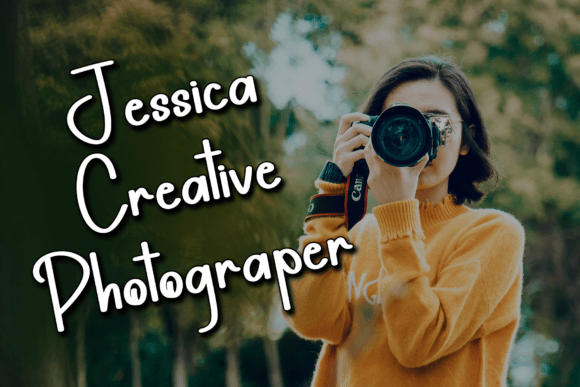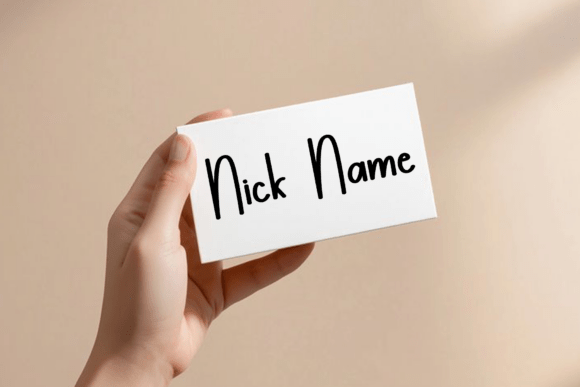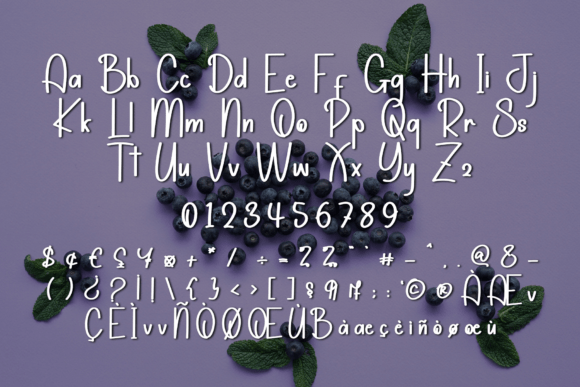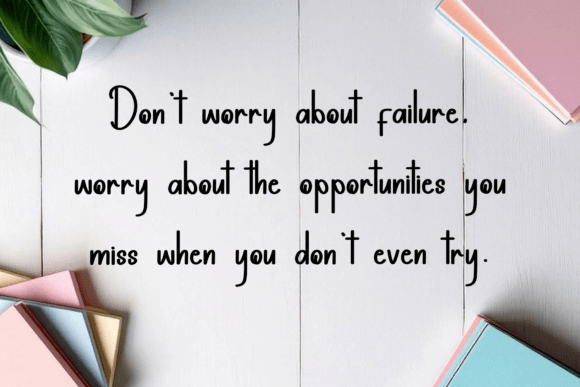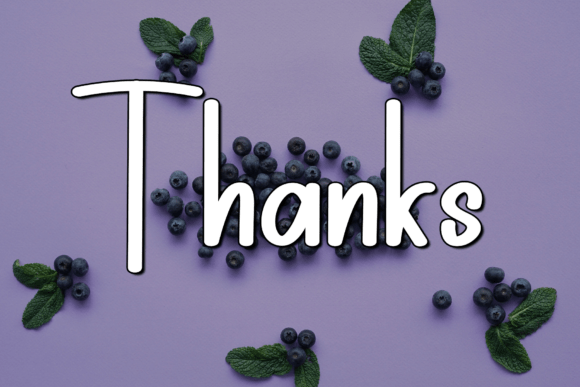
Introduction to Planberry Font
Planberry is a minimal and neat font.
Key Features of Planberry Font
Why Choose Planberry Font?
Planberry Font offers exceptional quality and versatility, making it a valuable addition to your design toolkit. Whether you’re creating for personal projects or commercial use, Planberry Font delivers professional results.